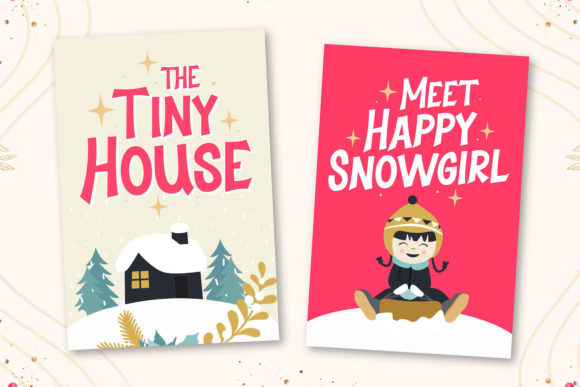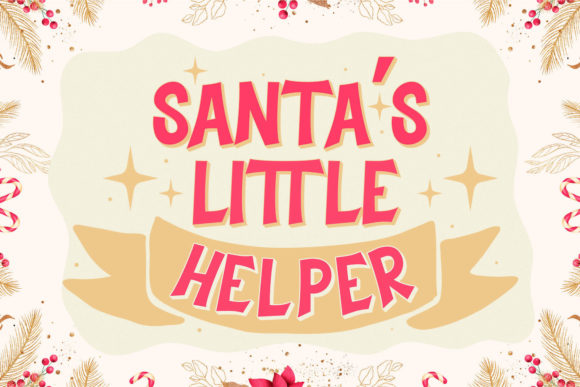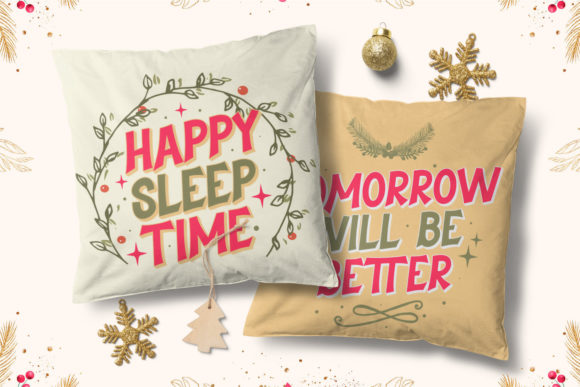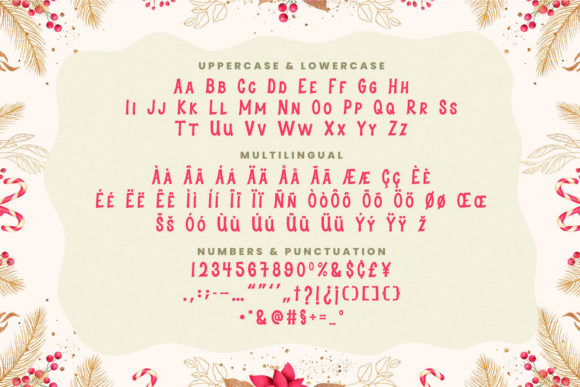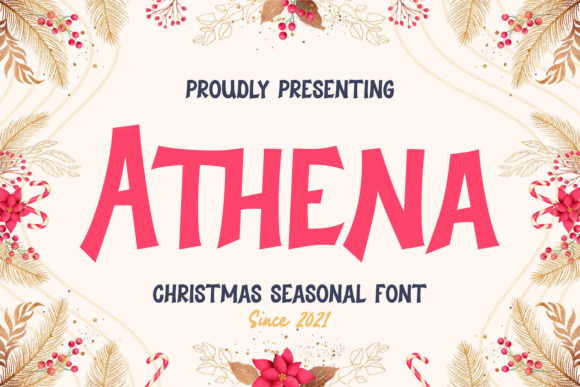
Athena Font: Elevate Your Creations with a Bold and Thick Lettered Display Font
In the world of typography, a font can make or break a design. For designers and crafters looking to add a touch of sophistication and elegance to their creations, the Athena font is an excellent choice. This bold and thick lettered display font is perfect for a wide range of projects, from branding and advertising to packaging and digital media.
What is Athena Font?
Athena is a stunning display font that features bold and thick lettering, making it perfect for headlines, titles, and other display text. Its unique design and versatility make it an excellent addition to any font library. Whether you’re working on a logo, brochure, or social media post, Athena font is sure to make a statement.
Key Features of Athena Font
• Bold and Thick Lettering: Athena font features bold and thick lettering that is sure to grab attention.
• Versatility: This font is perfect for a wide range of projects, from branding and advertising to packaging and digital media.
• Elegant Design: Athena font has an elegant design that adds a touch of sophistication to any creation.
• Easy to Read: Despite its bold design, Athena font is easy to read, making it perfect for use in a variety of contexts.
Why Choose Athena Font?
There are many reasons why designers and crafters should consider adding Athena font to their library. Here are just a few:
• Elevate Your Creations: Athena font has the potential to elevate any creation, adding a touch of sophistication and elegance.
• Stand Out from the Crowd: With its bold and thick lettering, Athena font is sure to make your designs stand out from the crowd.
• Save Time: With Athena font, you can create stunning designs in no time, thanks to its easy-to-use design and versatility.
How to Use Athena Font
Athena font is easy to use and can be applied to a wide range of projects. Here are a few ideas to get you started:
• Branding and Advertising: Use Athena font to create stunning logos, billboards, and ad campaigns.
• Packaging: Add a touch of elegance to your packaging with Athena font.
• Digital Media: Use Athena font to create eye-catching social media posts, blog headers, and more.
Tips and Tricks for Using Athena Font
Here are a few tips and tricks to keep in mind when using Athena font:
• Pair with Other Fonts: Athena font pairs well with other fonts, so don’t be afraid to experiment with different combinations.
• Use in Moderation: While Athena font is stunning, it’s best to use it in moderation to avoid overwhelming your design.
• Experiment with Colors: Athena font looks great in a variety of colors, so don’t be afraid to experiment and find the perfect hue for your design.
Font Name Athena Font
Author Runsell Graphic
In conclusion, Athena font is an excellent addition to any font library. Its bold and thick lettering, versatility, and elegant design make it perfect for a wide range of projects. Whether you’re a designer or crafter, Athena font is sure to elevate your creations and help you stand out from the crowd.